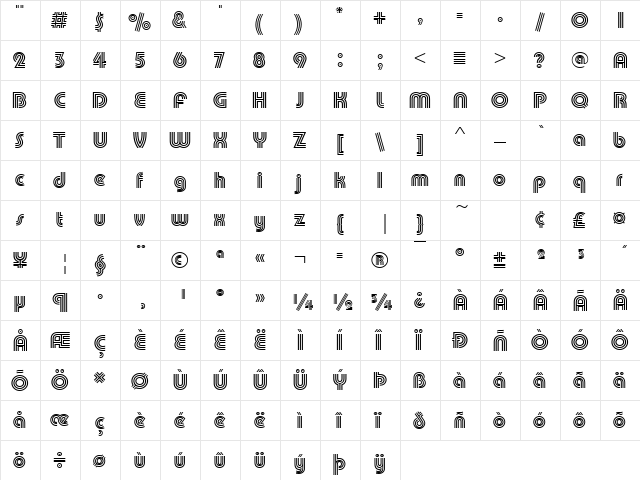
URWPuiseuxTriD Regular
Design Context for URWPuiseuxTriD Typeface
URWPuiseuxTriD is a composed and adaptable typeface that performs quietly and consistently across a wide range of design contexts.